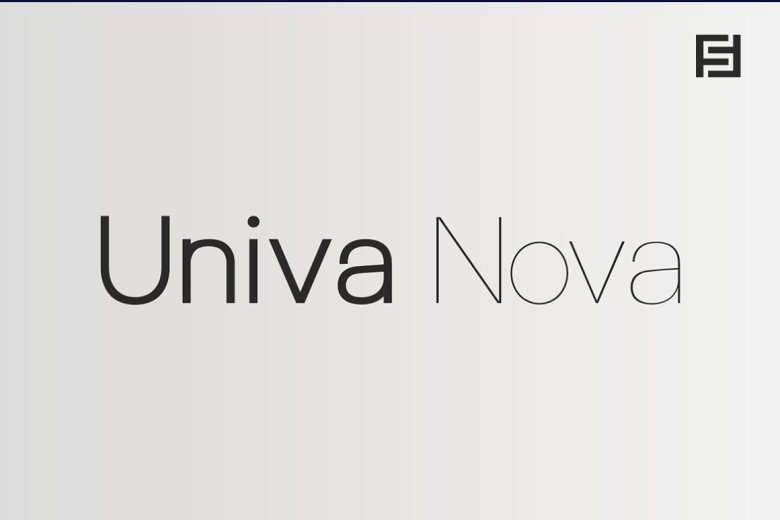
Univa Nova is such a beautiful minimalist typeface with a masterclass design prioritizing extreme fine usability features. We went back to ground zero for inspiration, which ranged from some of the original Swiss Design based branding projects. Univa Nova is a perfect for graphic design, text presentation, web design, print and display use.
With its modern and elegant style, it only waits to be edited by you. Perfect for beautiful branding, logo / logotype create projects, marketing graphics, banners, posters, signage, corporate identites as well as editorial design. Especially designed with ad designers in mind, Univa Nova will bring you a freshish look! In all caps, adding extra letter-spacing will get this font prepared for minimal headline creation as well as logotype use as shown in the promo images.
This typeface has been designed with a special handmade feature to make it beautiful and readable. Moreover, we refined this typeface to make it usable in design and digital design. Each weight includes extended language support including Western European & Central European sets, a total of 306 glyphs. Univa Nova typeface comes with a total of 16 fonts having 8 weights Hairline / Thin / Light / Regular / Medium / SemiBold / Bold / Heavy and it’s italic version.